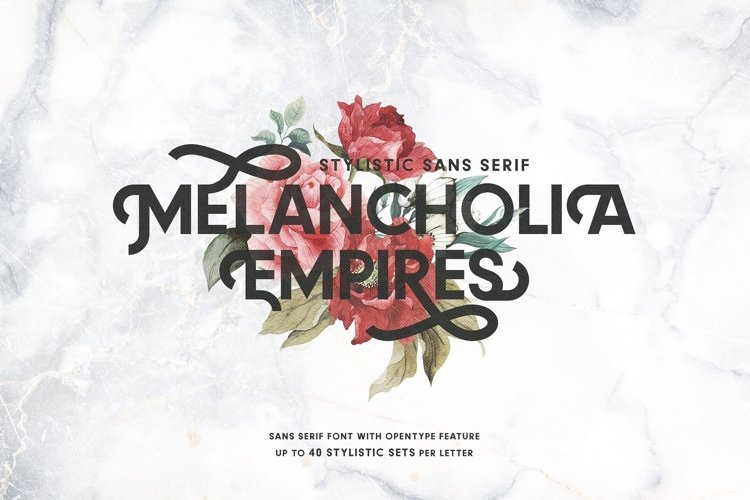
Get up to 40 Stylistic Sets Per Letter to choose from with MELANCHOLIA OpenType Feature.
I got the idea to develop this font while browsing a series to watch, and I saw this sans serif font with flourish decoration as a title, I couldn't stop thinking about it, because I am into all that vintage thingy and I decided to search if there is a font like that, but I couldn't find anything like that. So I decide to develop a font with that style, a modern sans serif font with a vintage touch, with giving the user the freedom to create the composition.
With total of 958 Glyphs, MELANCHOLIA includes Uppercase, Stylistic Sets, 85+ Latin based Languages Support, Numerals and Punctuations. The Stylistic Sets available in Lowercase from ss.01 until ss.20 and Uppercase from ss.05 until ss.16. The Initial Forms available in Uppercase from ss.01 to ss.04 and The Terminal Forms available in Uppercase from ss.17 to ss.20.